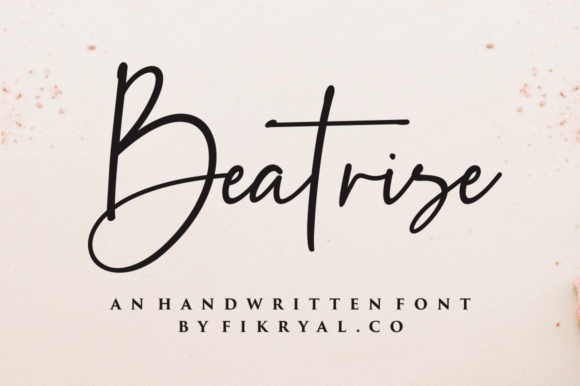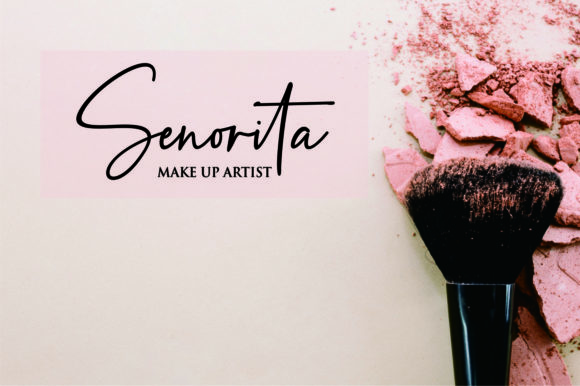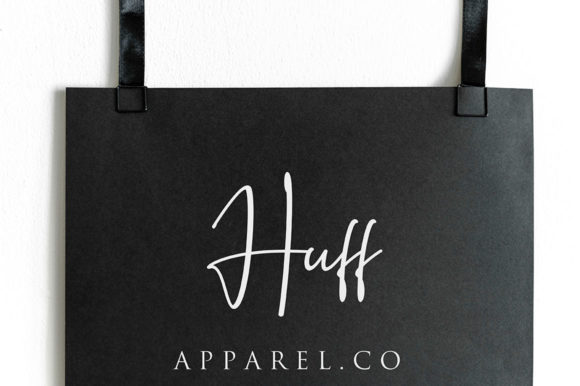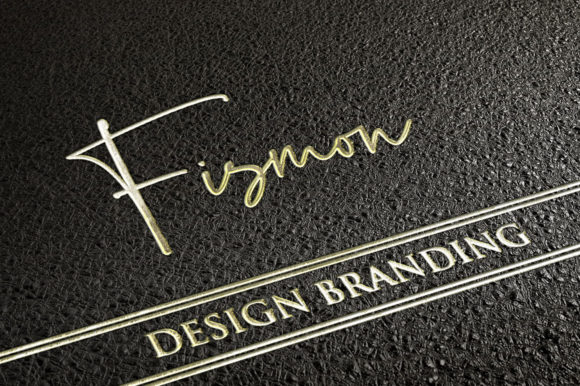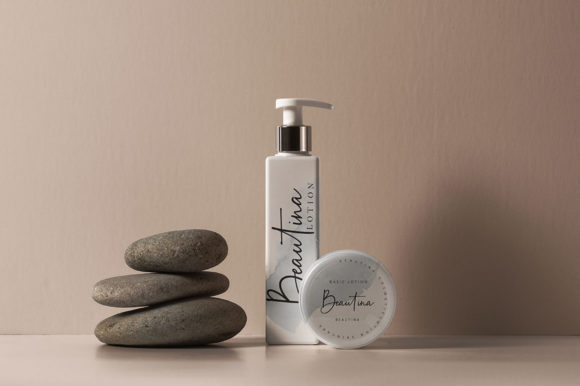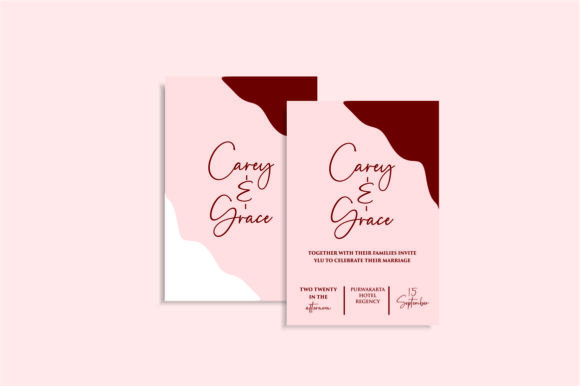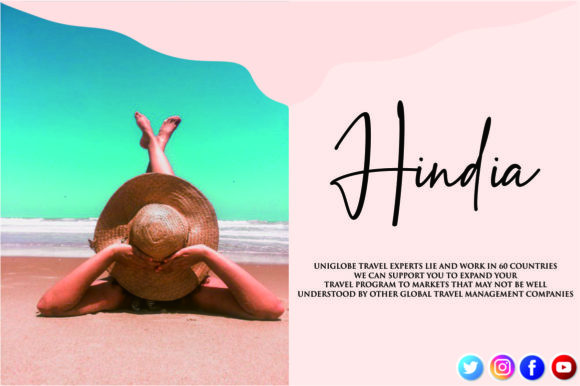
Script Fonts Beatrise Font 0 146 FacebookTwitterPinterestWhatsApp Beatrise Font Poster 2 Beatrise Font Poster 3 Beatrise Font Poster 4 Beatrise Font Poster 5 Beatrise Font Poster 6 Beatrise Font Poster 7 About Beatrise Font Beatrise is a modern and cool script with a contemporary feel. Get inspired by its elegant charm! DOWNLOAD NOW